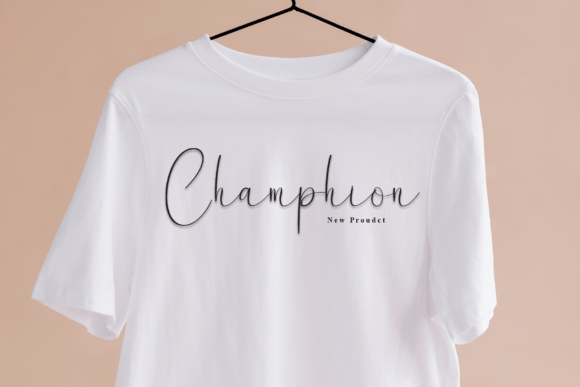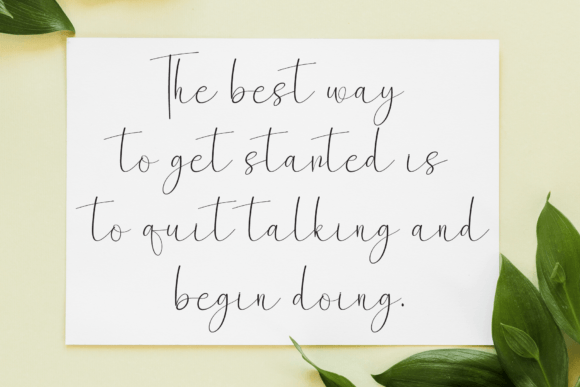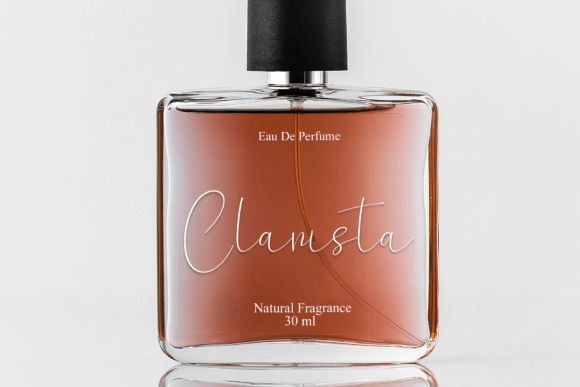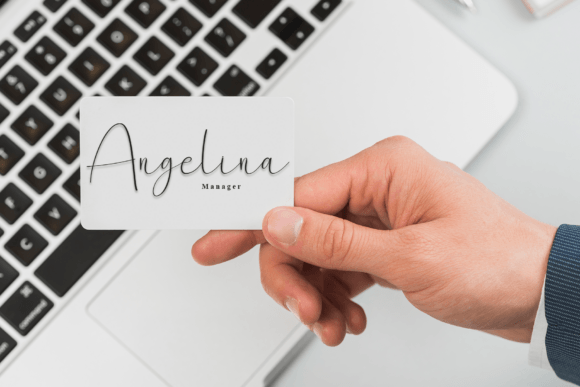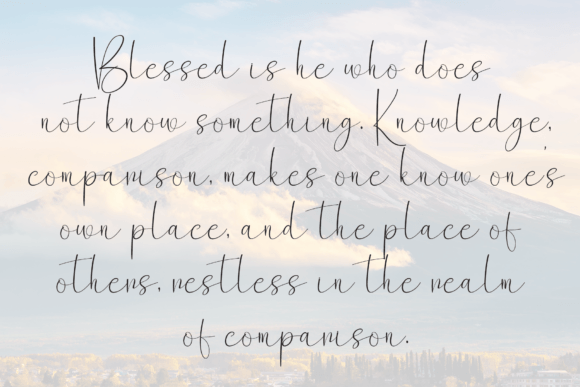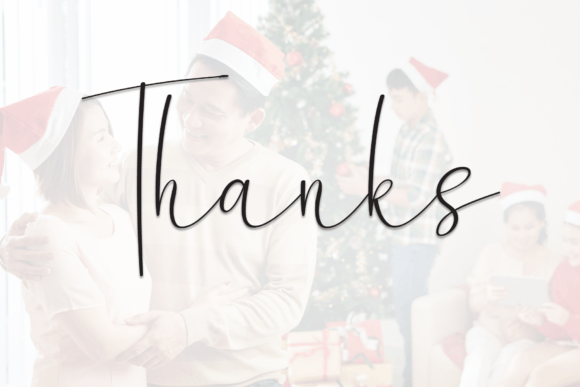
Introducing Family Christmas Font: The Ultimate Holiday Display Font
Are you looking for a font that embodies the sweetness and friendliness of the holiday season? Look no further than Family Christmas Font, a charmingly delightful handwritten display font that’s sure to bring a playful touch to your designs. In this article, we’ll dive into the world of Family Christmas Font, exploring its features, uses, and benefits for designers and crafters.
A Font that Embodies the Spirit of Christmas
Family Christmas Font is more than just a font – it’s an experience. With its cute and fun persona, it’s the perfect addition to any design that requires a sprinkle of joy. Whether you’re creating wedding invitations, holiday cards, or festive decorations, this font is sure to bring a smile to your audience’s faces. Its inviting typeface animates your design with a playful touch, making it perfect for a wide range of projects.
Key Features of Family Christmas Font
- Handwritten Display Font: Family Christmas Font is a beautifully crafted handwritten display font that’s perfect for headlines, titles, and short text.
- Sweet and Friendly: This font embodies the sweetness and friendliness of the holiday season, making it perfect for designs that require a personal touch.
- Playful and Fun: With its cute and fun persona, Family Christmas Font is sure to bring a playful touch to your designs.
- Versatile: This font is perfect for a wide range of projects, including wedding invitations, holiday cards, decorations, and more.
Uses for Family Christmas Font
Family Christmas Font is a versatile font that can be used for a wide range of projects. Here are some ideas to get you started:
- Wedding Invitations: Add a touch of whimsy and romance to your wedding invitations with Family Christmas Font.
- Holiday Cards: Create festive and fun holiday cards that will delight your friends and family.
- Decorations: Use Family Christmas Font to create festive decorations, such as garlands, banners, and signs.
- Party Invitations: Create playful and fun party invitations that will set the tone for a festive celebration.
Family Christmas Font offers a range of benefits for designers and crafters, including:
- High-Quality Design: Family Christmas Font is a high-quality font that’s designed to look great on any device.
- Unique and Exclusive: This font is a unique and exclusive design that’s sure to set your projects apart from the rest.
Tips and Tricks for Using Family Christmas Font
Here are some tips and tricks for getting the most out of Family Christmas Font:
- Use it Sparingly: Use Family Christmas Font sparingly to add a touch of whimsy and fun to your designs.
- Pair it with Other Fonts: Pair Family Christmas Font with other fonts to create a unique and interesting design.
- Have Fun: Most importantly, have fun with Family Christmas Font and enjoy the process of creating something special.